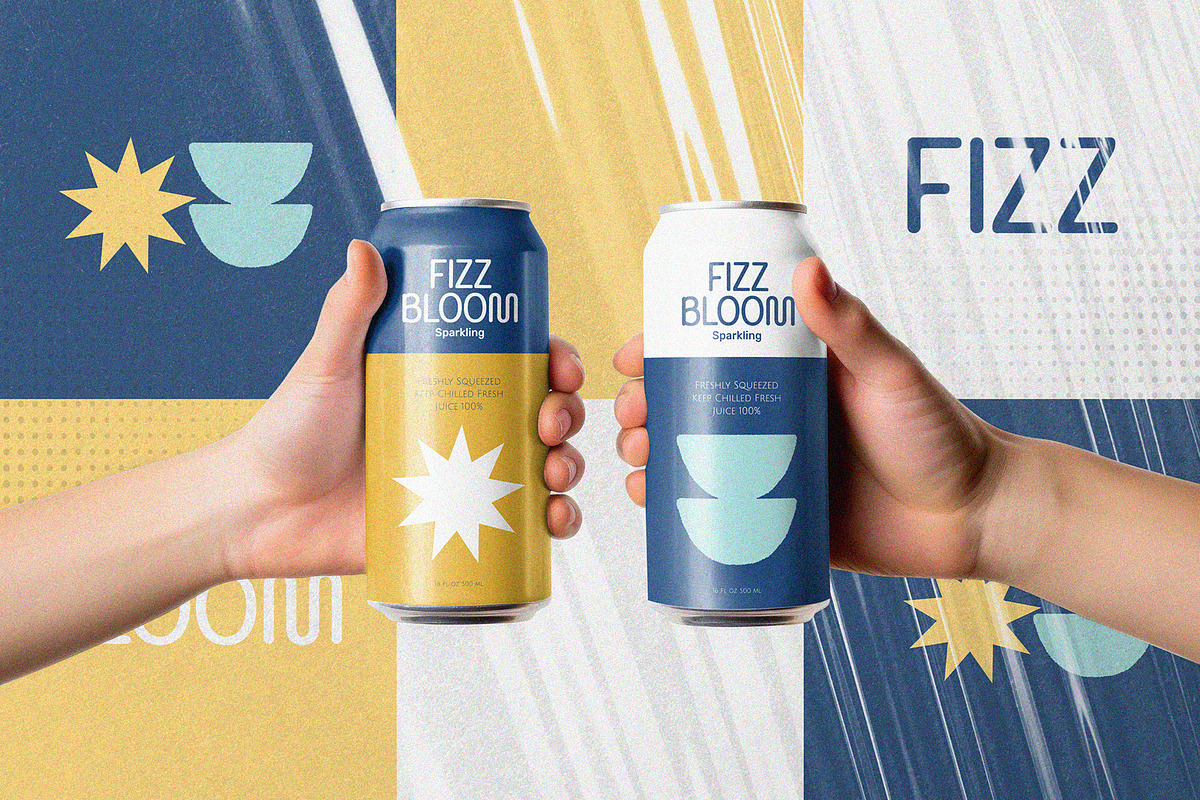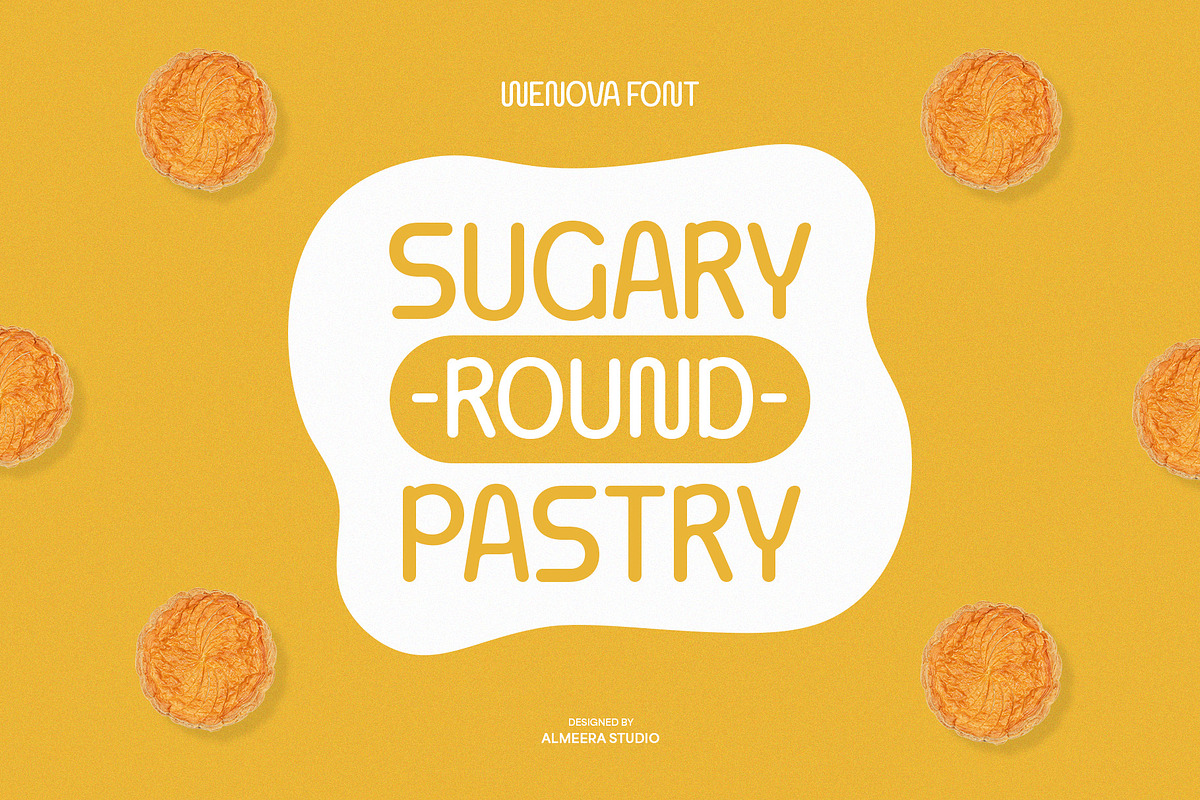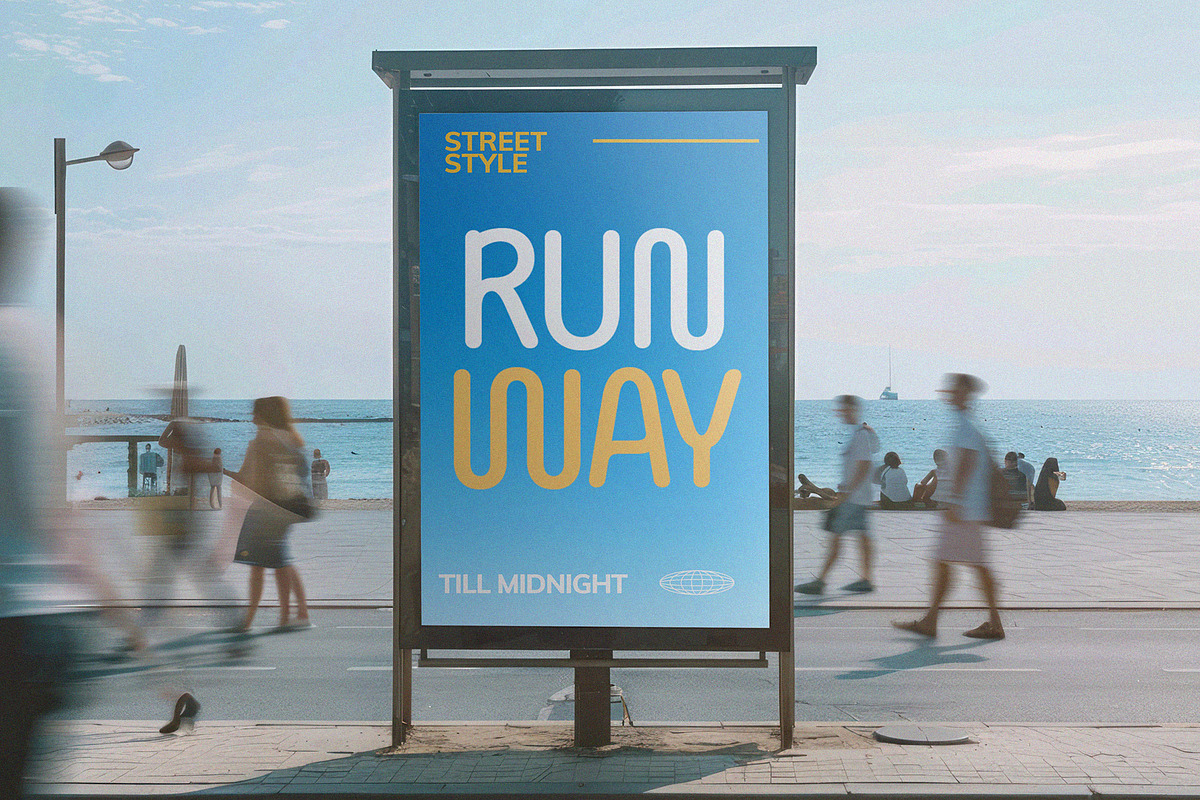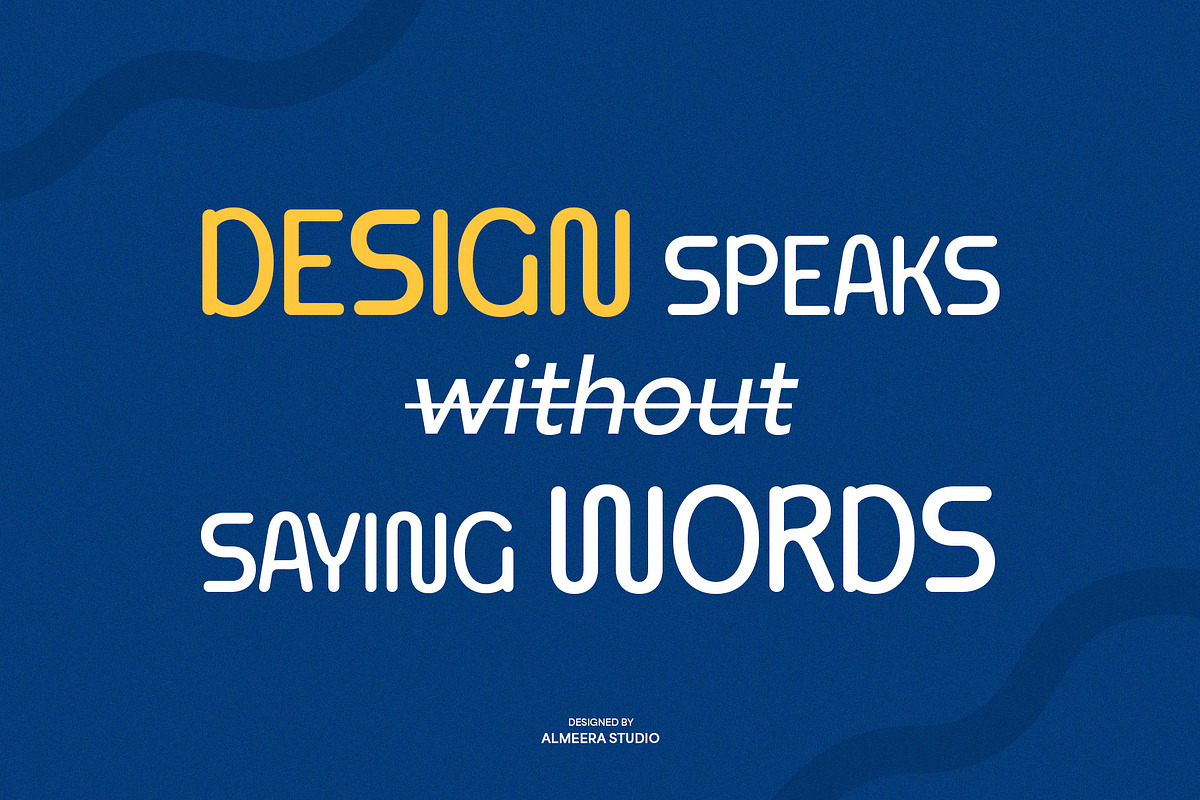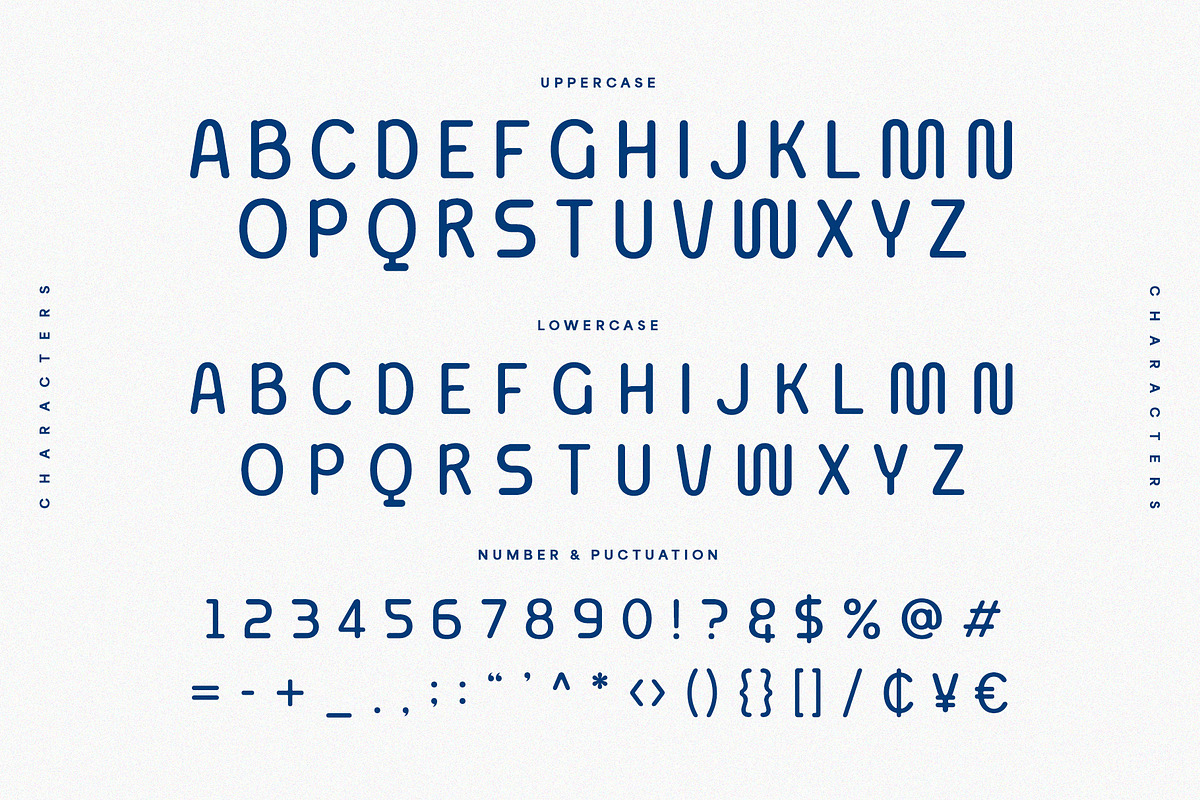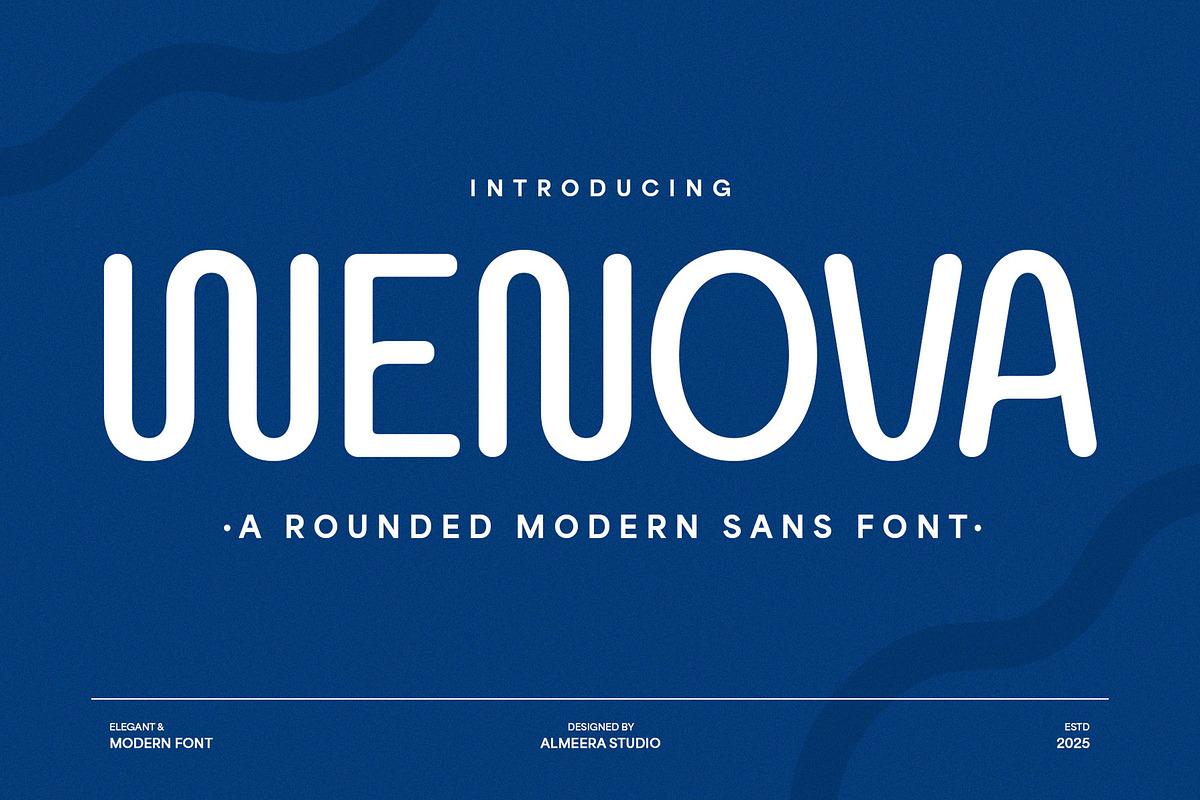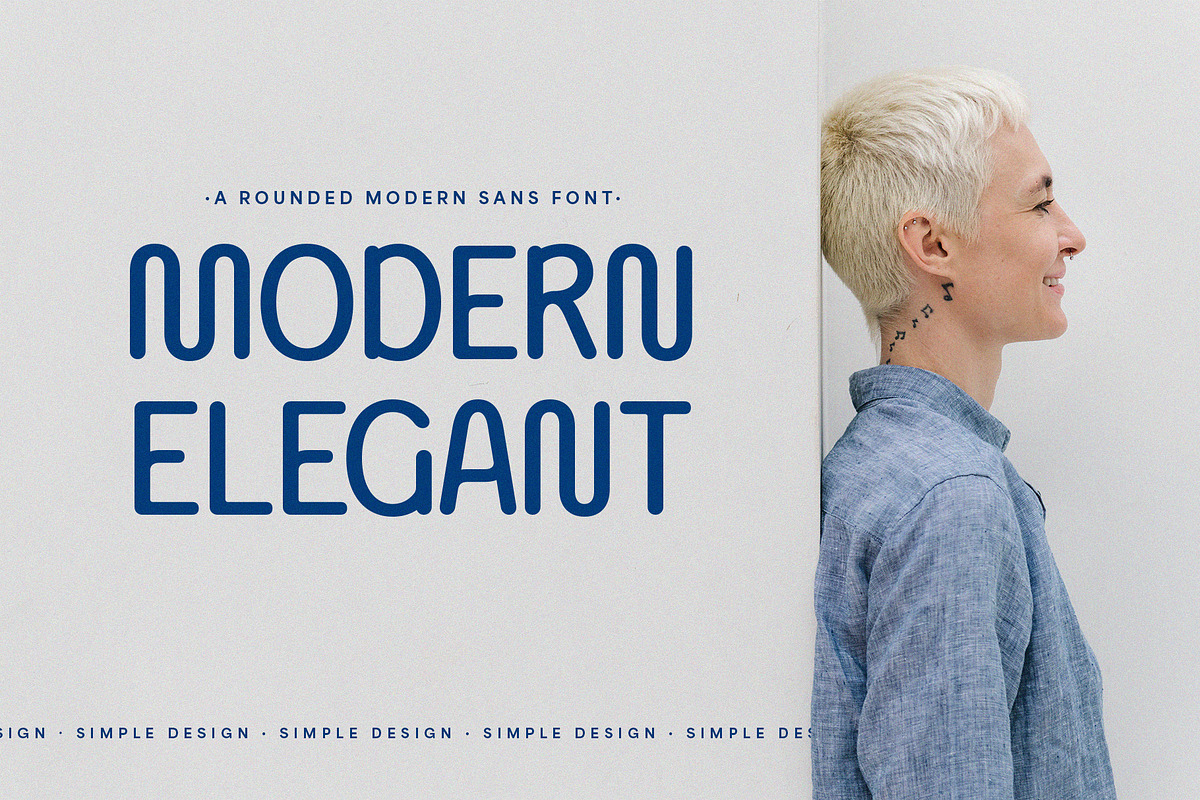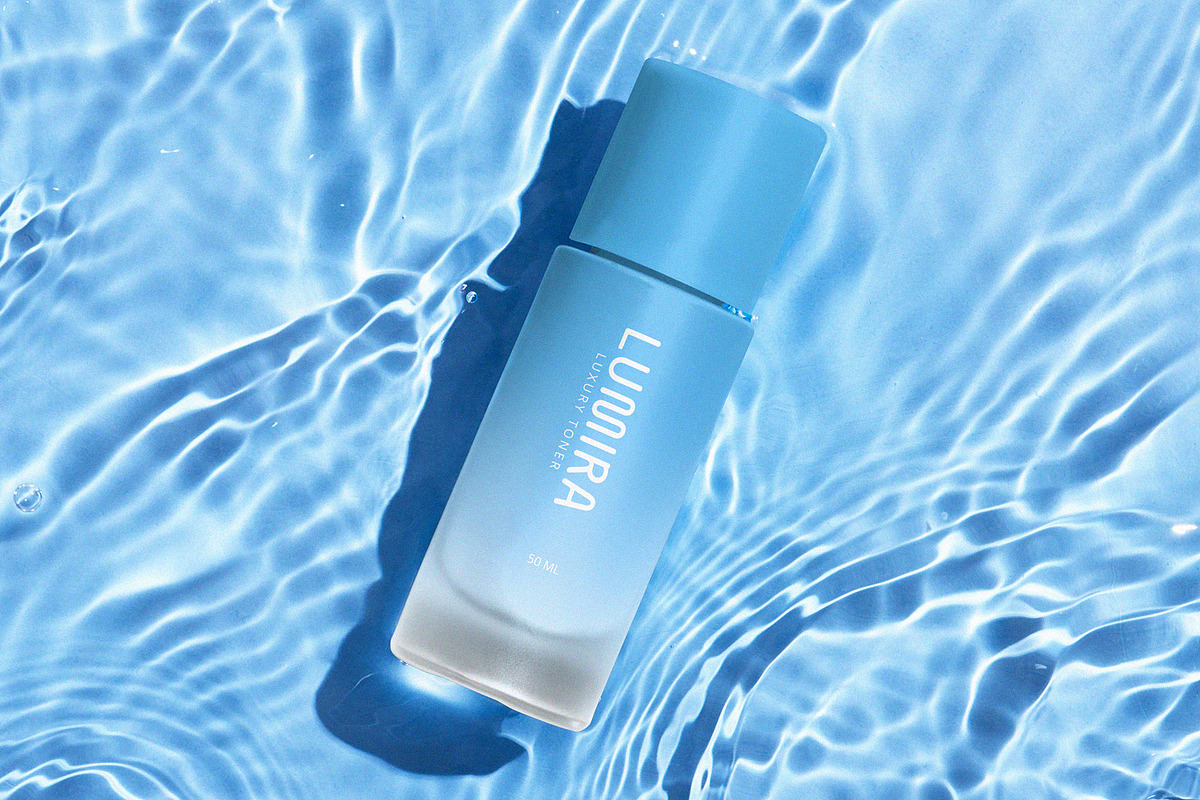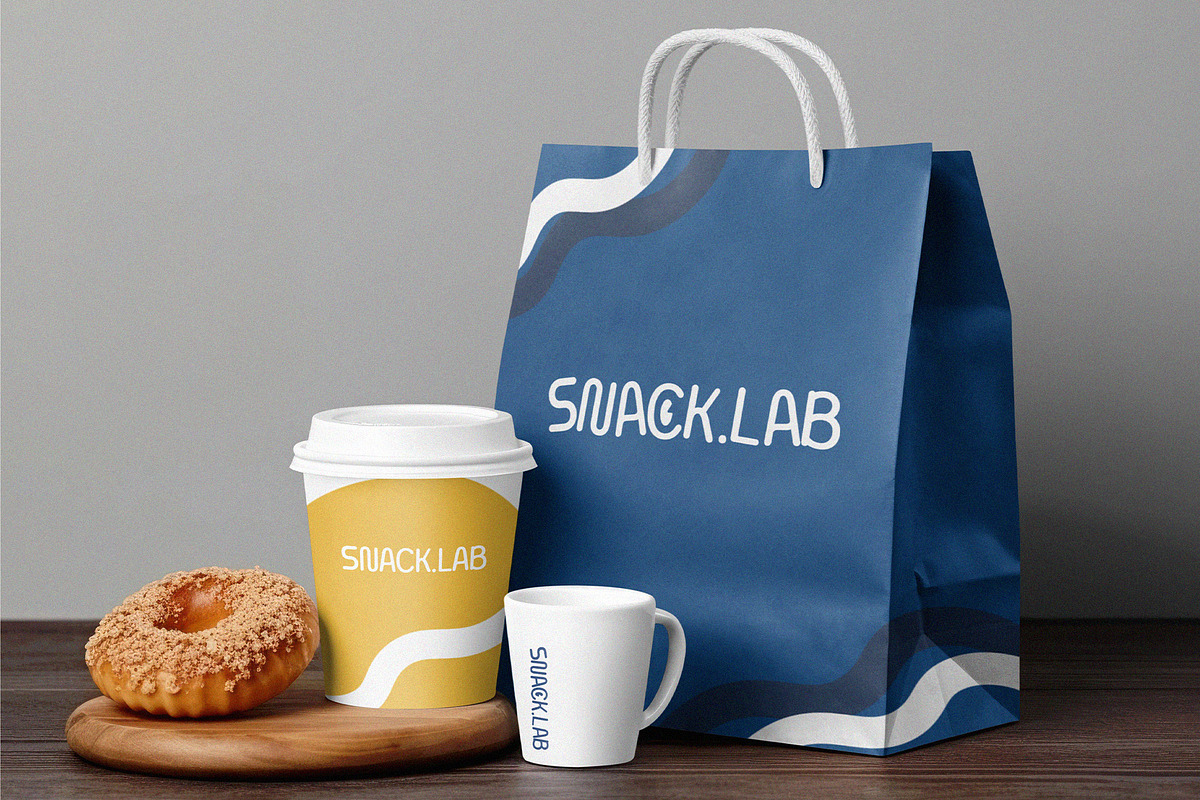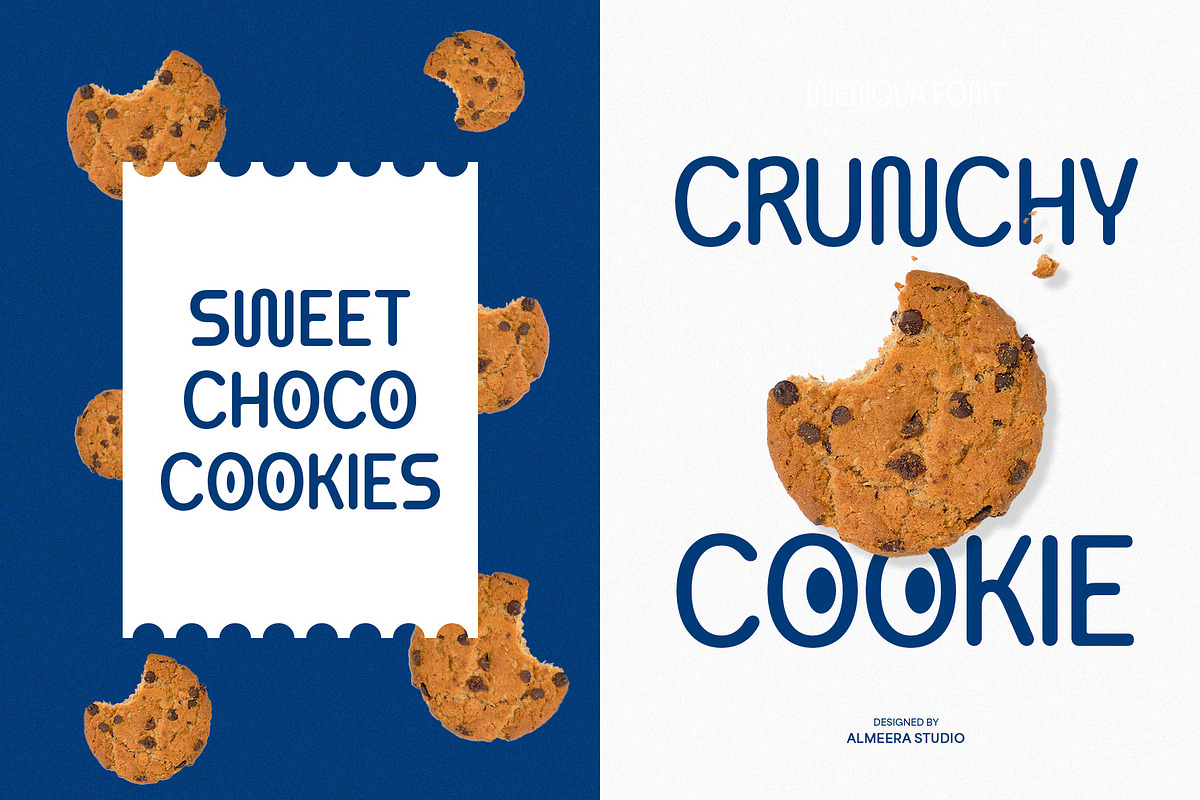
Wenova - A Rounded Modern Sans
Discover Wenova, a delightful and rounded modern sans font designed to infuse your projects with a friendly yet sophisticated appeal. This elegant and modern typeface is perfect for branding, children's books, app design, web interfaces, and any project seeking a soft, approachable, and contemporary aesthetic. Wenova's smooth curves and clean lines ensure excellent readability and a warm, inviting presence. Its versatility makes it ideal for a wide range of applications, bringing a sense of charm and playful professionalism. Elevate your typography with Wenova, the go-to font for designers who desire a fresh, friendly, and effortlessly chic solution with a unique rounded character.
- Numerial